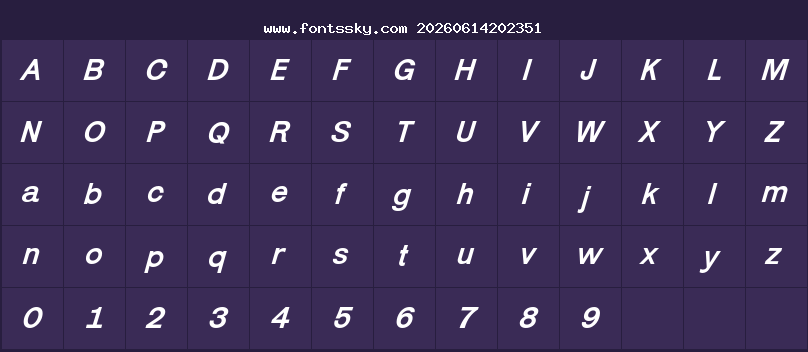
Karrik Preview
• Font Name: Karrik
• Font ID: Karrik-Italic:Jean-BaptisteMorizot;LucasLeBihan:1.5
• Full Font Name: Karrik Italic
• PostScript Name: Karrik-Italic
About Karrik.ttf
Karrik.ttf is a modern, elegant sans-serif font designed for ultimate readability and visual harmony. Perfect for branding, headlines, web design, and print materials.